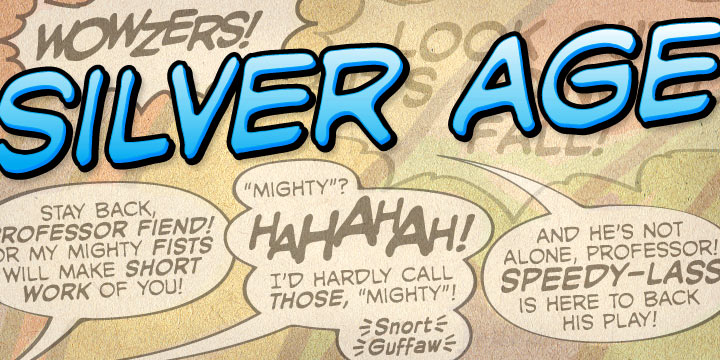
Silver Age BB Font is perfect for comic book publishing, superhero merchandise, vintage comic conventions, retro gaming graphics, nostalgic pop culture events, classic superhero memorabilia, comic book store signage, vintage toy packaging, retro advertising campaigns, classic animation projects, superhero-themed restaurants, and authentic 1960s comic book reproductions.
This font is exciting because it captures the iconic elegance and heroic optimism of the Silver Age of Comics (1956-1970), featuring boldly heroic letterforms that shine with the same polished sophistication and timeless appeal found in the legendary comic books that introduced the world to modern versions of Superman, Batman, Spider-Man, and the Fantastic Four during an era when comics achieved unprecedented artistic sophistication and cultural respectability. The magnificently crafted character design embodies both the technical excellence of professional comic book lettering and the inspiring heroism that defined an entire generation's understanding of courage, justice, and the power of good triumphing over evil, creating typography that feels both nostalgically authentic and eternally inspiring. Each letter radiates the kind of heroic dignity and silver-screen glamour that transforms ordinary text into declarations worthy of the greatest superheroes and most beloved comic book legends.
The Silver Age BB Font family includes regular and bold weights with complete character sets featuring superhero-inspired numerals, heroic punctuation marks, and decorative elements reminiscent of comic book speech balloons, heroic emblems, retro comic graphics, and classic superhero imagery. Advanced versions may offer additional stylistic variants with enhanced comic book effects, alternate characters that reflect authentic Silver Age lettering practices, and heroic ornaments that celebrate the golden era of comic book artistry and superhero storytelling.
Whether you're developing comic book branding, creating superhero entertainment materials, or designing nostalgic pop culture content, Silver Age BB Font Free Download provides the heroic authenticity and comic book elegance your project needs to capture the timeless appeal of classic superhero comics and the inspiring optimism that defined the Silver Age of Comics. This typeface transforms ordinary text into heroic declarations that honor both the artistic excellence of classic comic books and the enduring power of superhero mythology. The font's heroic character makes it essential for projects celebrating comic book heritage and superhero culture. Comic book enthusiasts and pop culture marketers will appreciate how this font brings authentic Silver Age tradition to their work with its genuinely heroic and classically sophisticated character that saves the day.